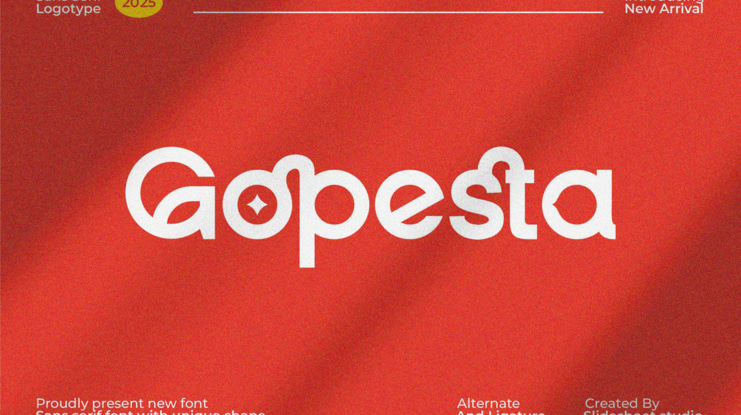
Gopesta Font
Introducing Gopesta is a modern sans serif font, trendy, bouncy and cute display font. It has a unique character with wood theme. It is perfect to be combined with invitation card designs, company logos, movie titles, movie names, business cards, book titles, brand names and various other designs.
Gopesta font preview